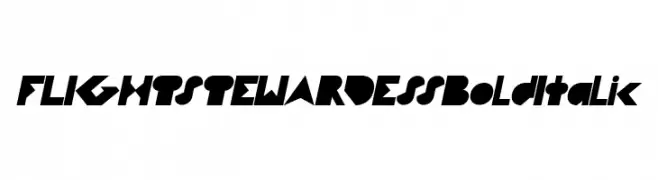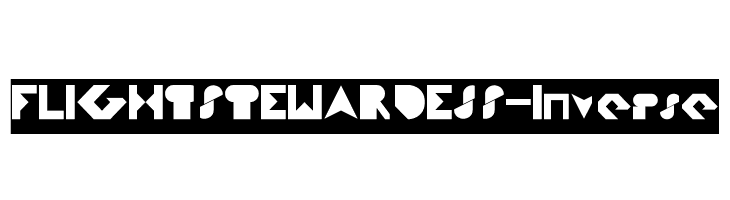
A bold, geometric font with sharp angles and a futuristic style.
A bold, italicized font with a geometric, angular design and a futuristic feel.
A bold, angular, and italic font with a futuristic and geometric style.
A hollow, geometric font with a modern and futuristic style.
A futuristic, hollow, geometric font with sharp, angular lines.
A bold, geometric font with a futuristic and angular design.
A bold, geometric font with a futuristic and dynamic design.